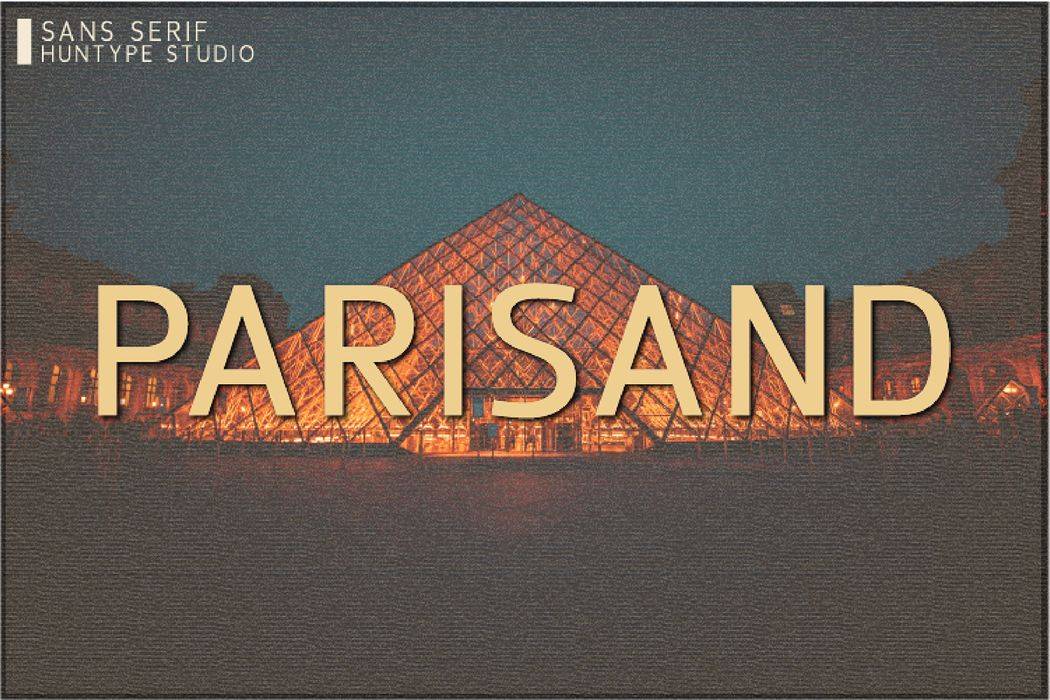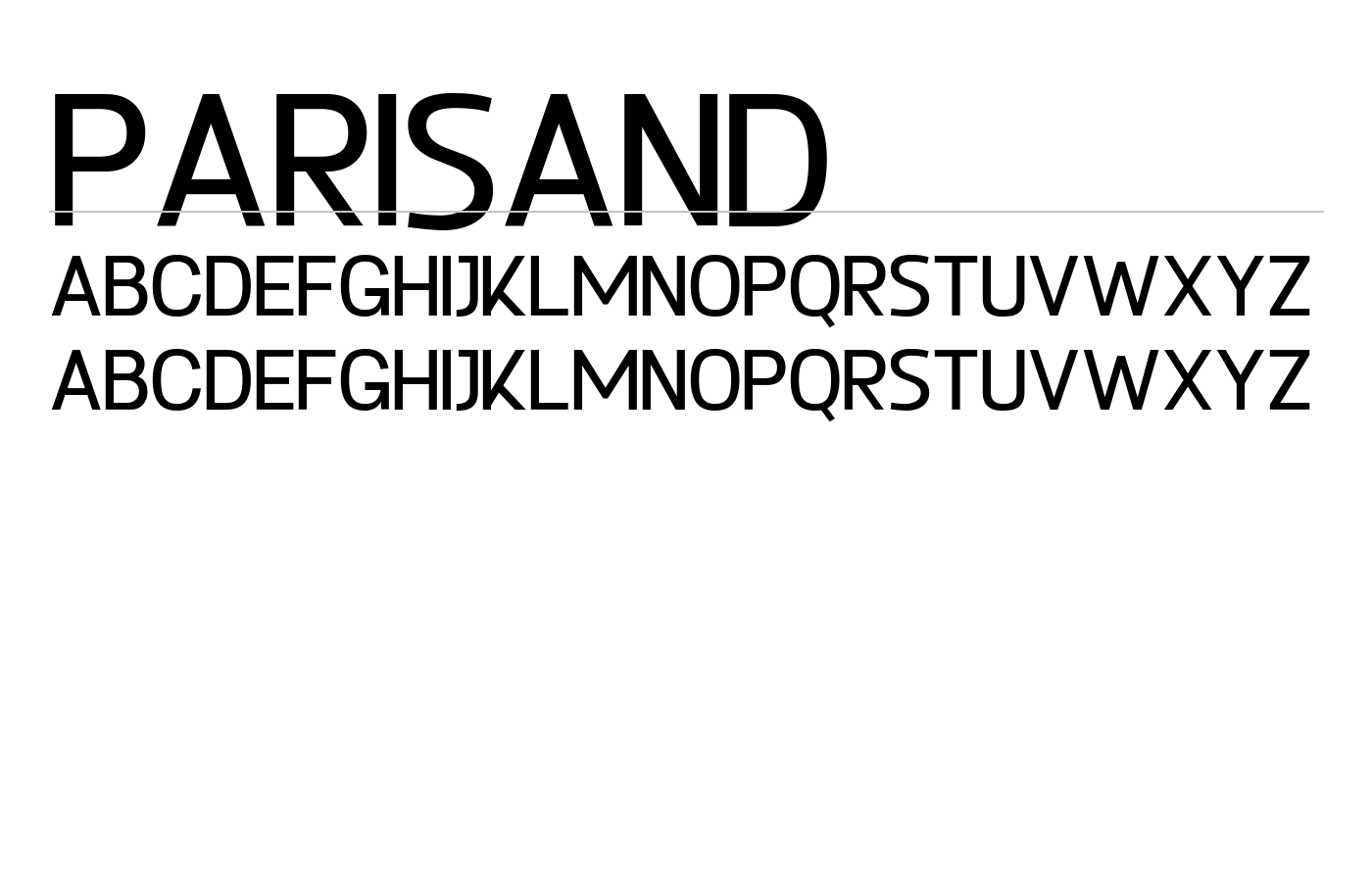
Parisand is a sleek sans serif font characterized by its clean, modern lines and a slightly condensed width, giving it a polished and professional appearance. Its uniform stroke weight and high legibility make it ideal for contemporary branding, editorial headlines, and digital interfaces where clarity and style are key. This font’s minimalist yet distinctive letterforms convey a sense of sophistication and reliability, perfect for businesses seeking a modern and approachable identity.
Parisand Font
About Parisand Font
| Font family | Parisand Font |